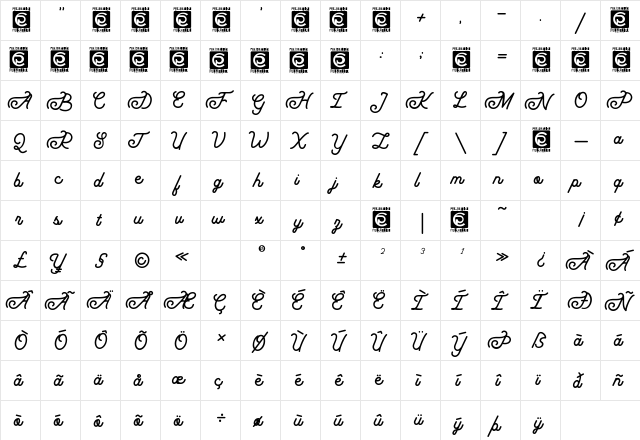
Grandmora Regular
| Foundry | Putracetol Studio, Karanganyar. |
| Designer | Putra Novembria Candra Kusuma |
Design Context for Grandmora Typeface
Grandmora takes a measured approach to typography — its balanced proportions and neutral character make it a reliable workhorse for both digital and print work.